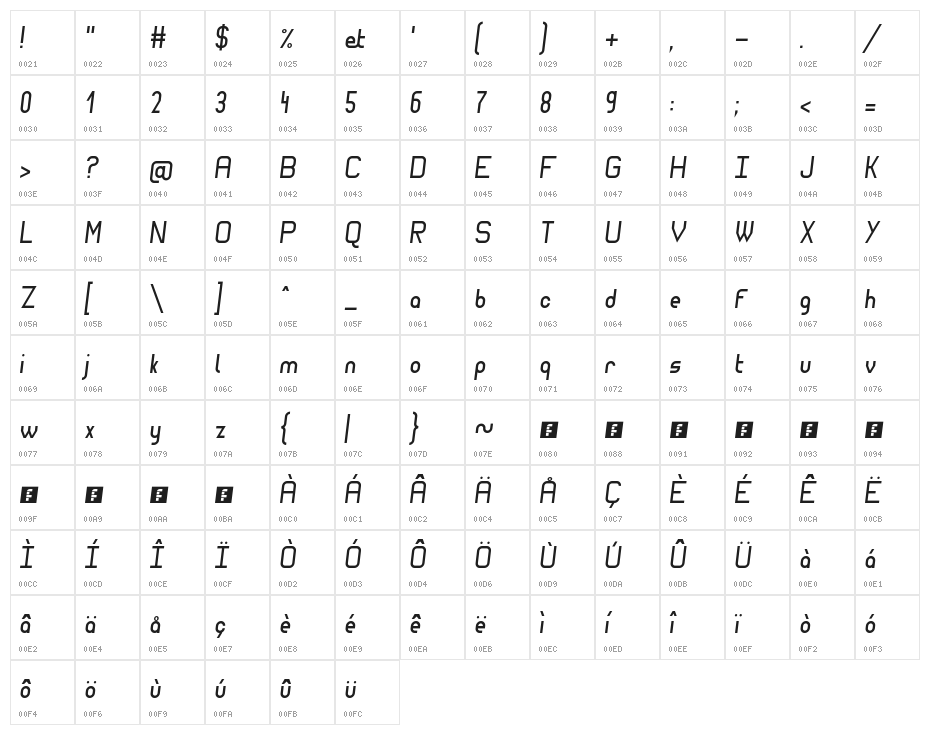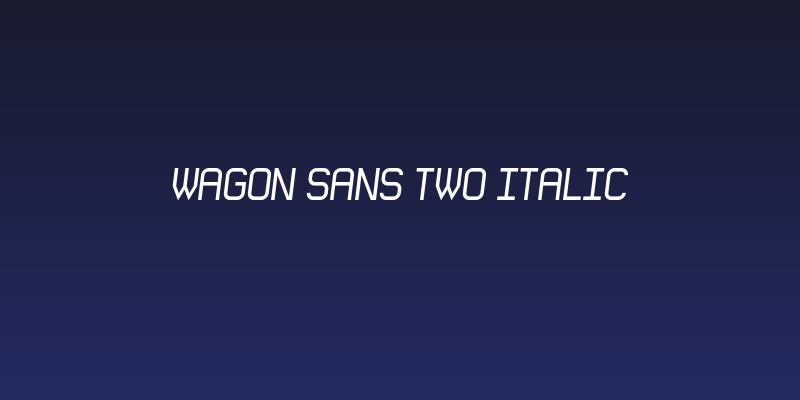
Wagon Sans Two Italic Font
Wagon Sans Two Italic Description
This font features a sleek, modern design with a slight italic slant, giving it a dynamic and forward-moving appearance. The characters are clean and sans-serif, providing a contemporary and professional look. The uppercase letters are tall and slightly condensed, while the lowercase letters maintain a consistent height, offering a balanced and harmonious feel. The numerals are clear and easy to read, making them suitable for various applications. Special characters are well-defined, adding versatility to the font's use. Overall, this font exudes a sense of modernity and efficiency, making it ideal for projects that require a clean and polished aesthetic.